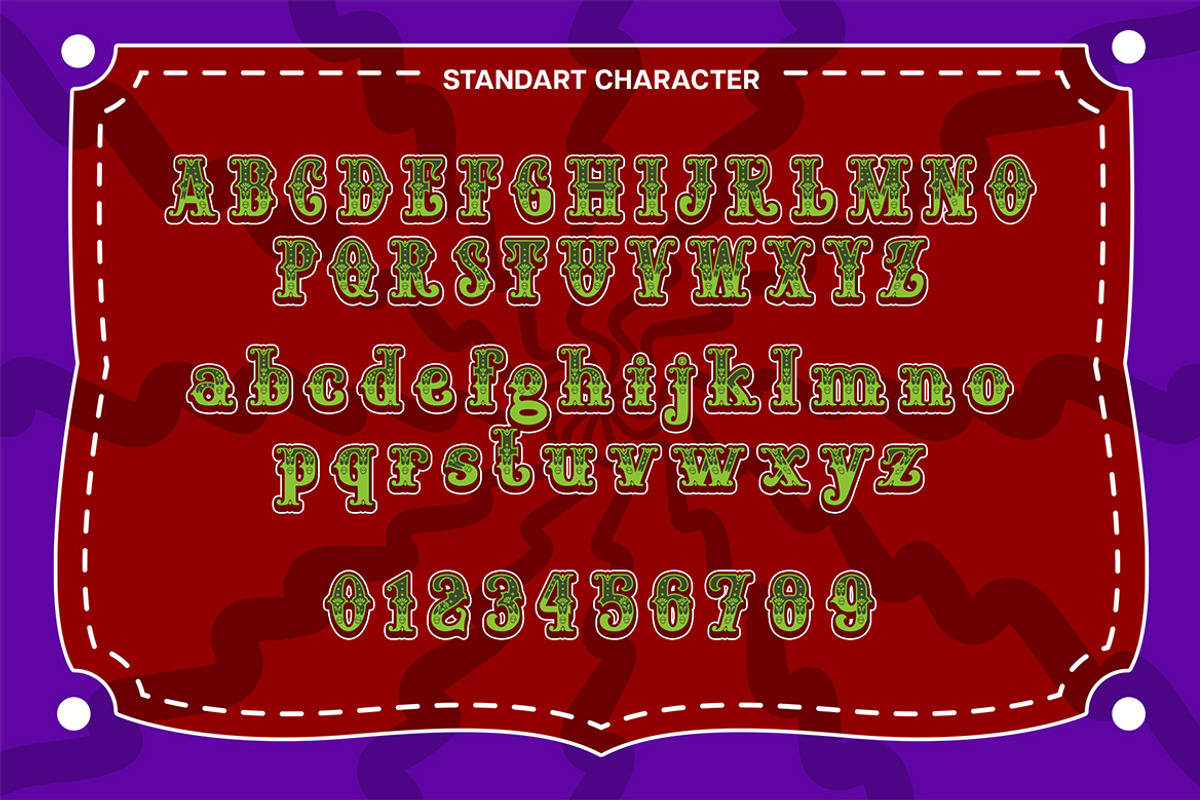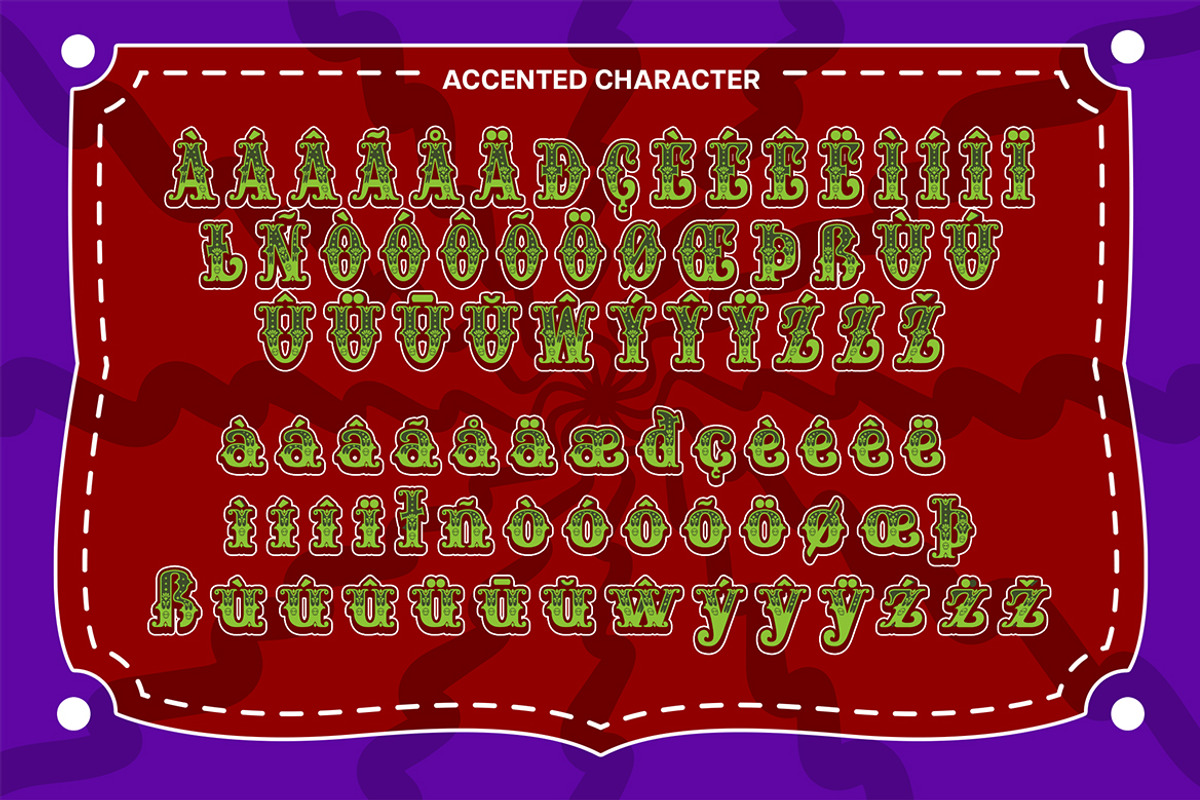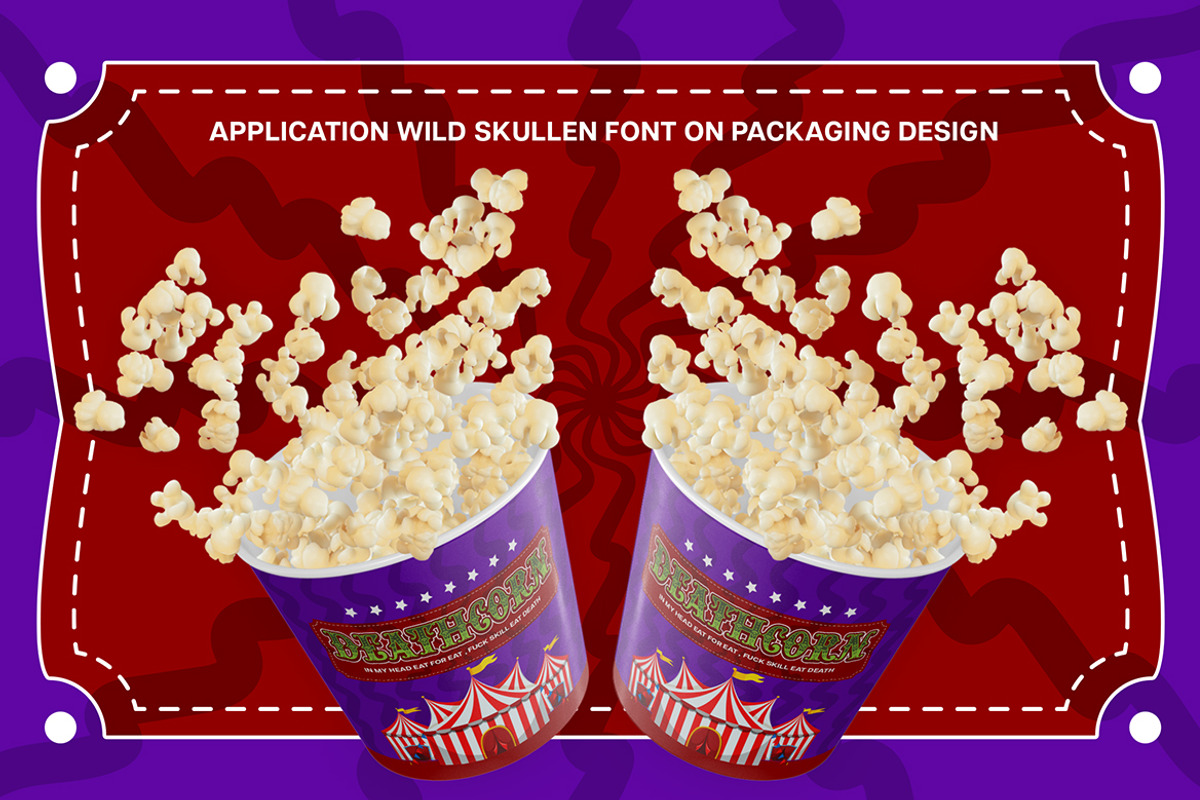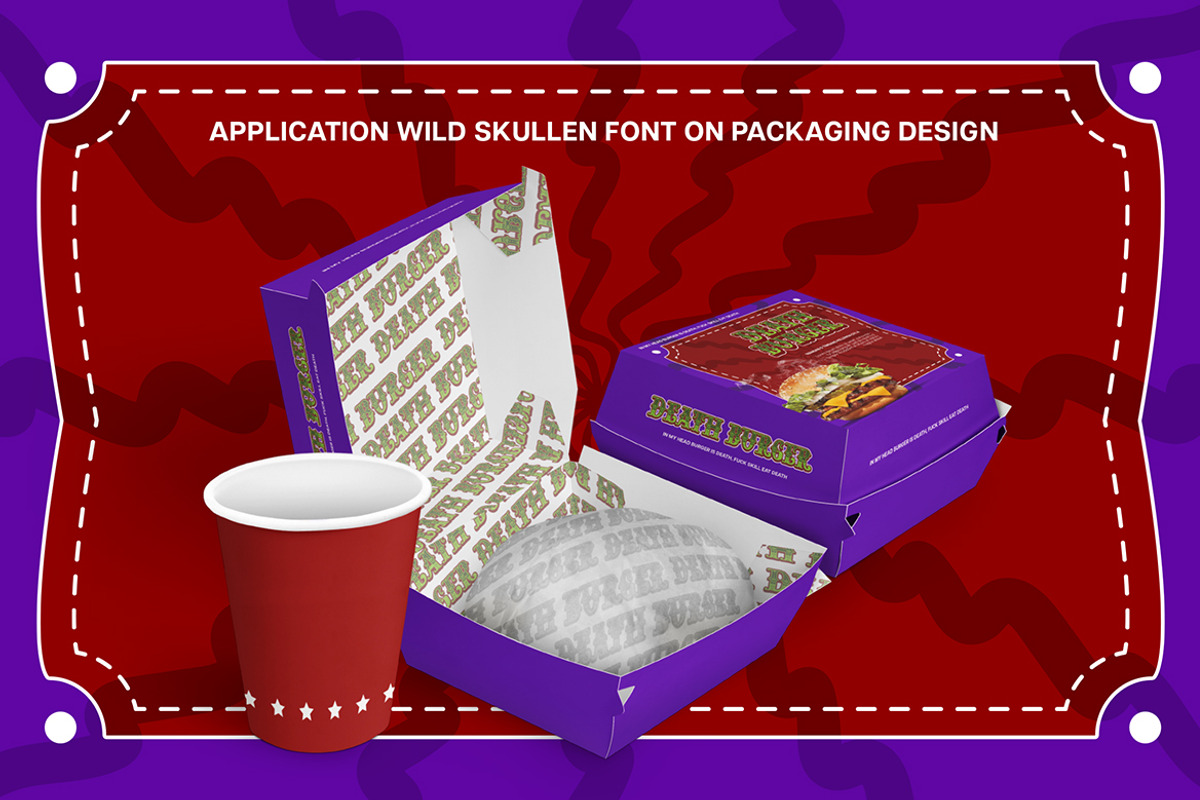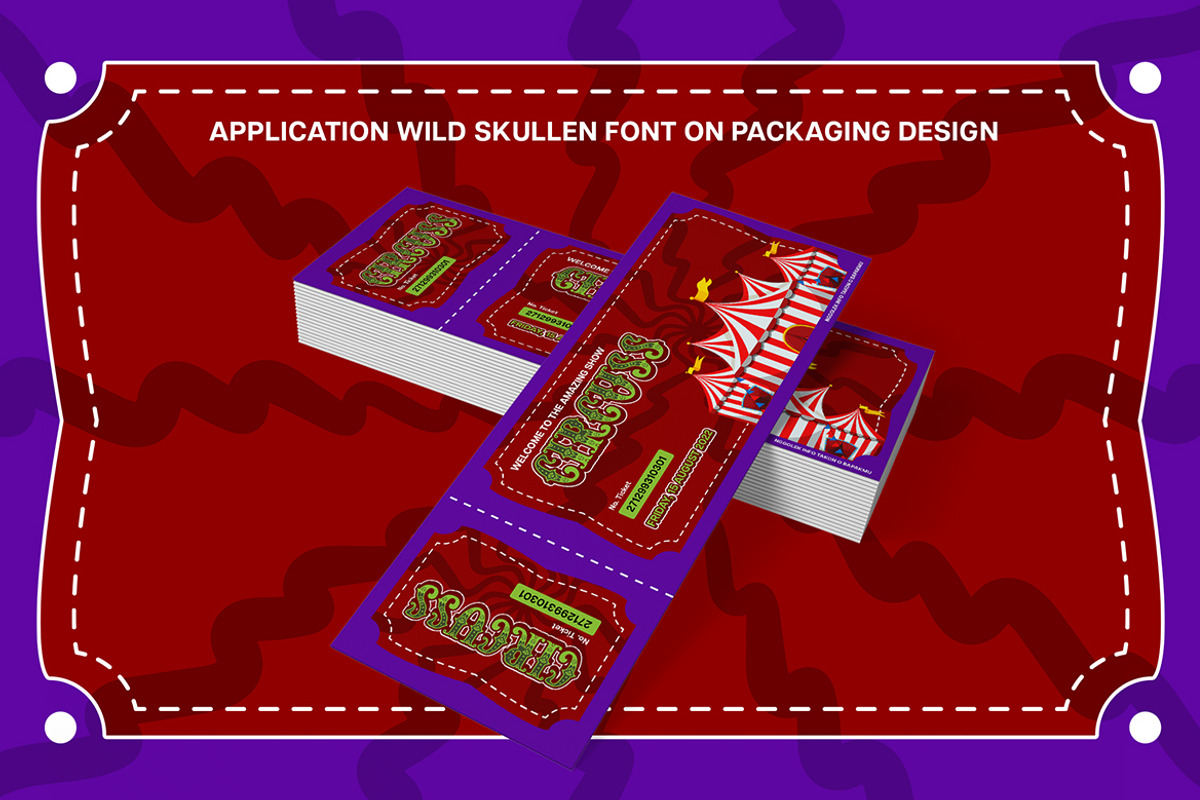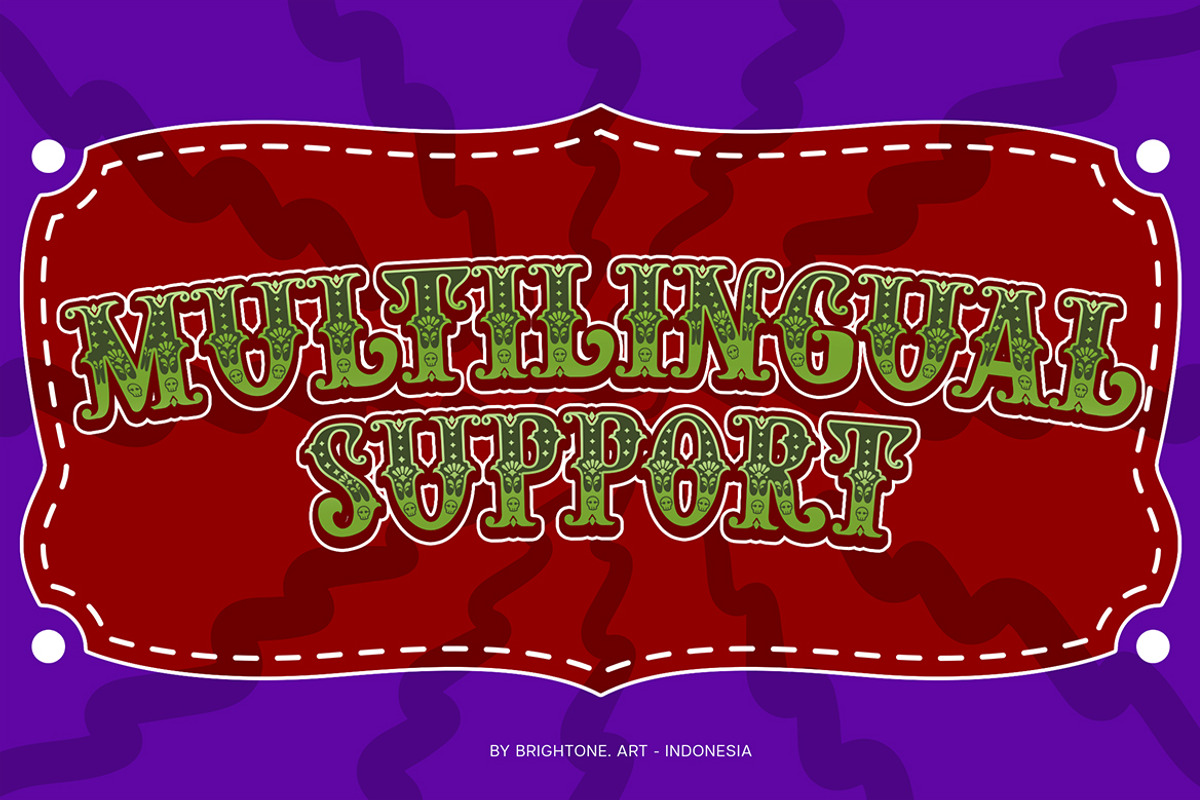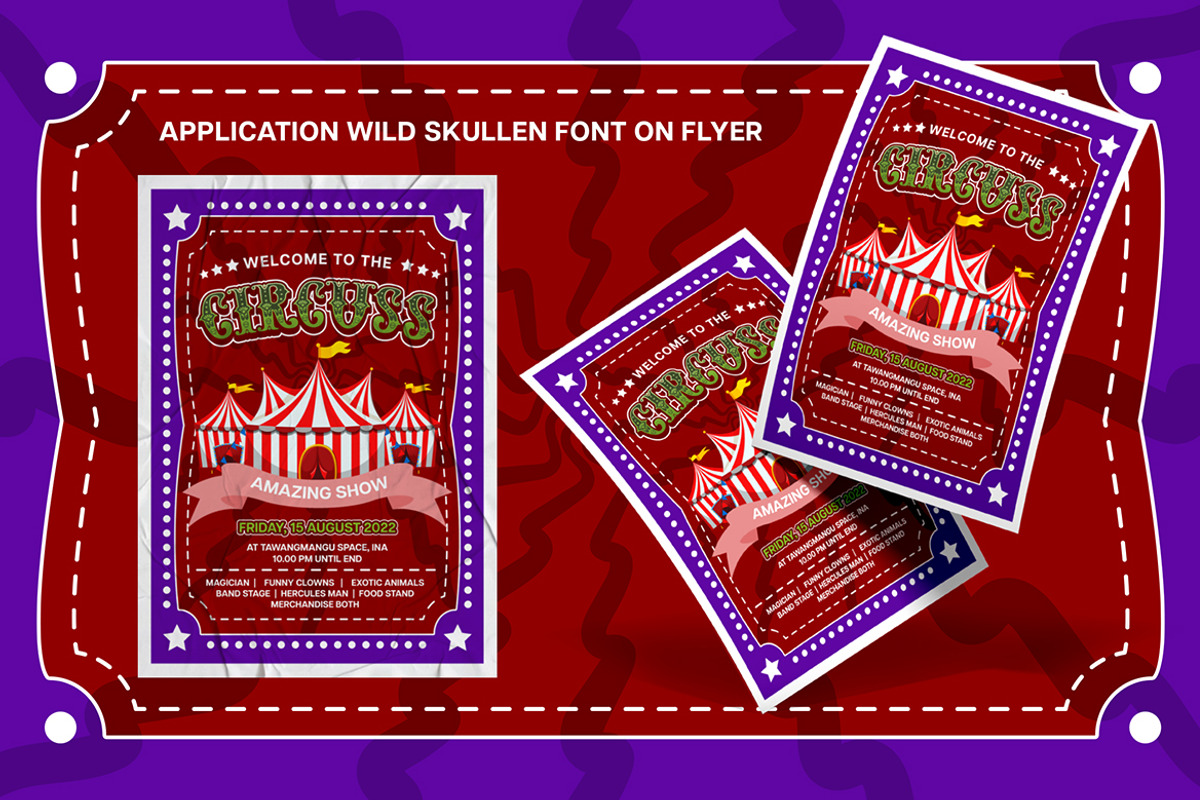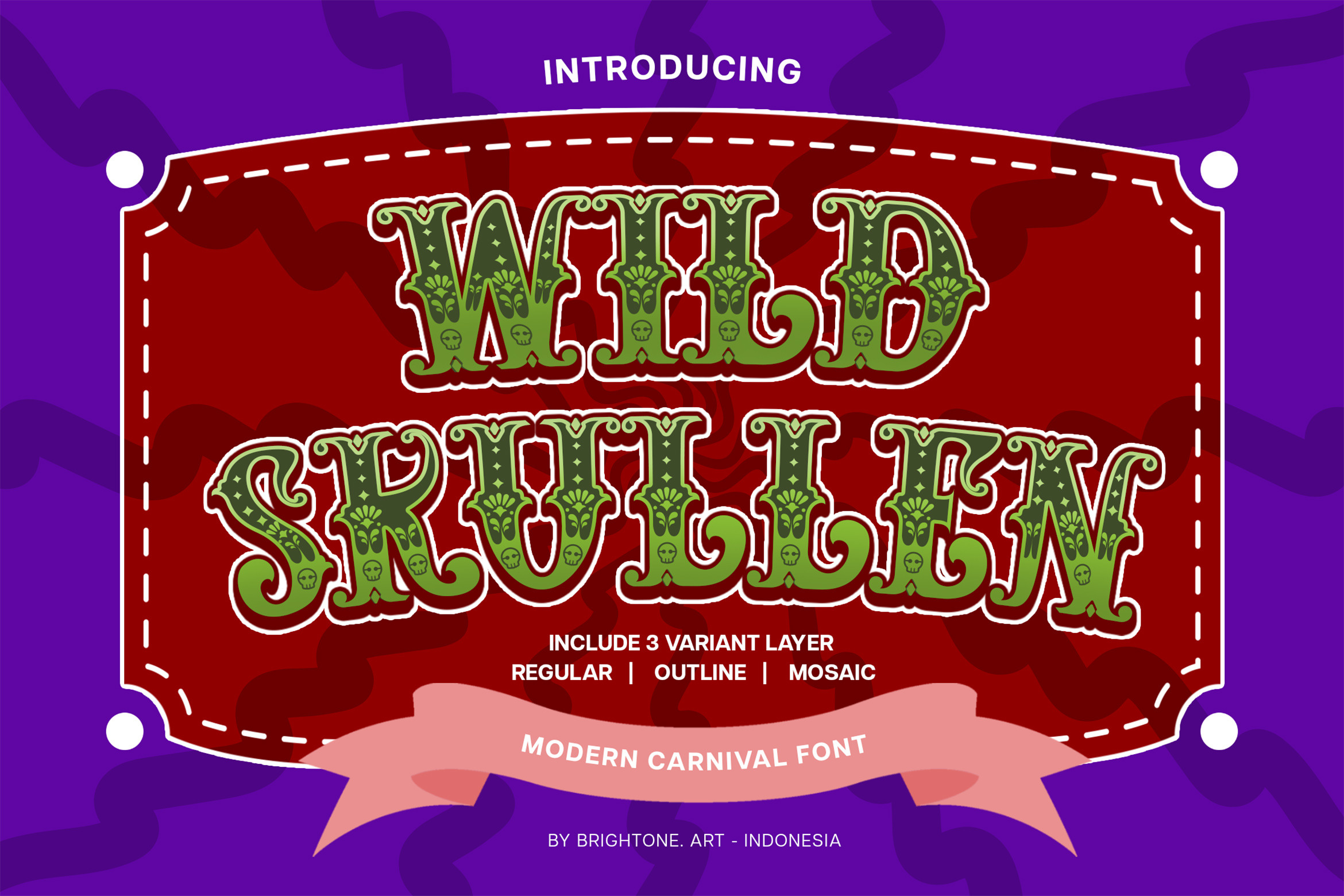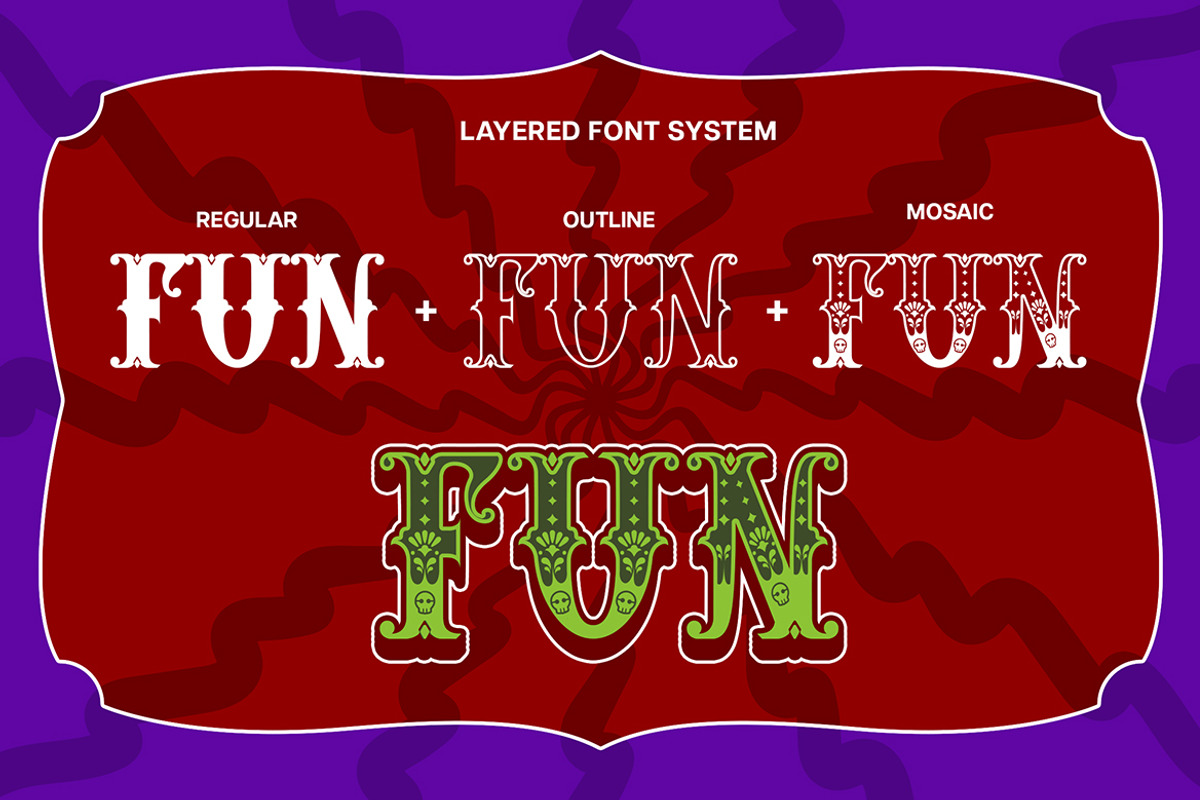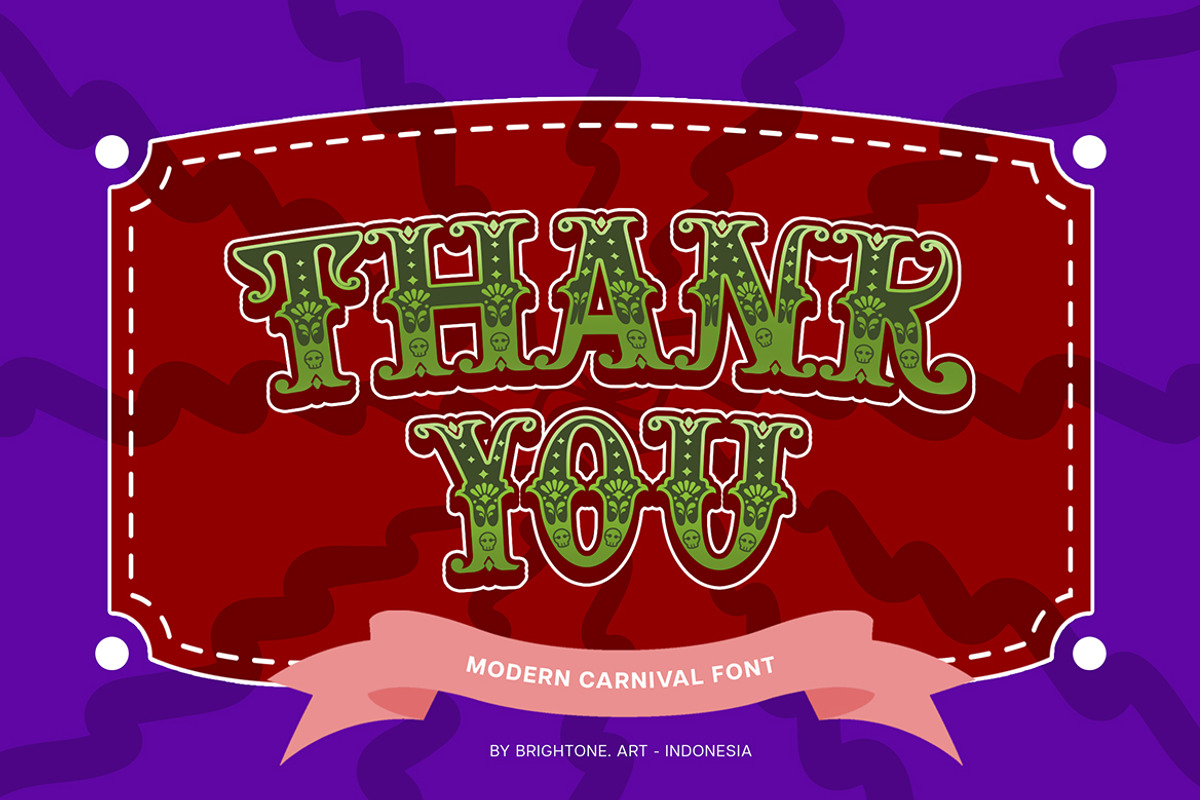
Wild Skullen - Slab Carnival Font
WILD SKULLEN is carnival font based on slab serif font with some decorative style, these font includes:
- Uppercase and Lowercase Characters, Numbers and Punctuation.
- Multilingual Support (Eastern, Central and Western European countries).
WILD SKULLEN comes in 3 different styles:
- WILD SKULLEN - Ver.1 (Regular)
- WILD SKULLEN - Ver.2 (Outline)
- WILD SKULLEN - Ver.3 (Mosaic)
WILD SKULLEN font is suitable to use for all purpose for your logo lettering, logo, label, packaging, sticker, branding and many more.